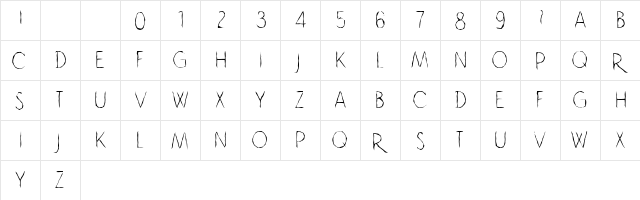
Dinosauruse Regular
Design Context for Dinosauruse Typeface
Dinosauruse is a composed and adaptable typeface that performs quietly and consistently across a wide range of design contexts.
Pro Tip: Use Dinosauruse in both headline and body roles to test its range before committing to a single application.